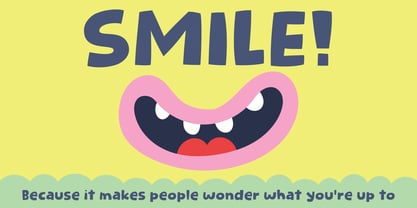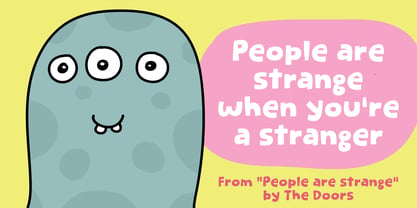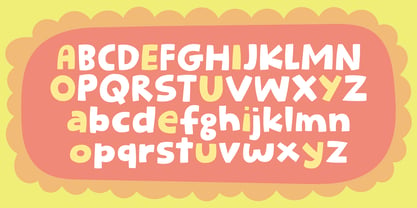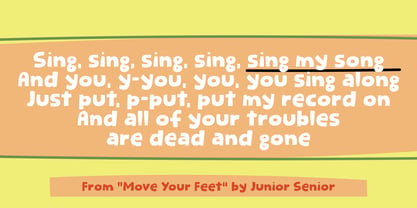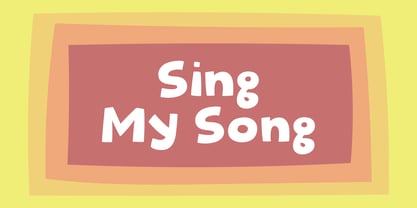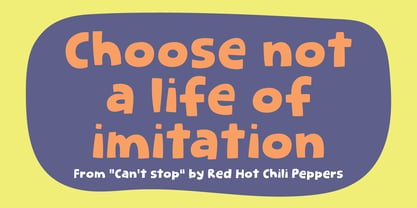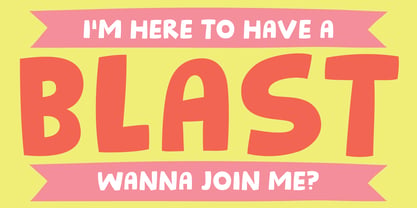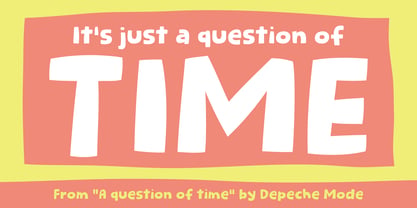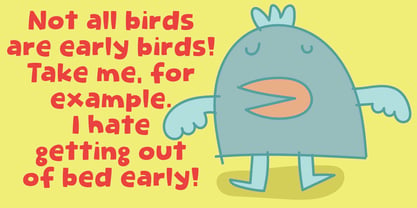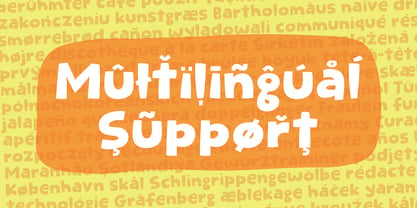
Sing My Song
La famille de polices Sing My Song a été conçue par Jakob Fischer et publiée par PizzaDude.dk. Sing My Song contient 2 styles et options de package familial. En savoir plus sur cette famille
“Sing My Song” was originally handmade, using a slightly blobby pen. The result was okay, but I really wanted this to be a funny, fresh, legible comic font and found that it needed a fresh-up. Therefore I spent hours, manually tracing each letter. The result is this bouncy little troublemaker—chunky, cheeky, and full of bubblegum energy, like letters on a sugar rush! :)